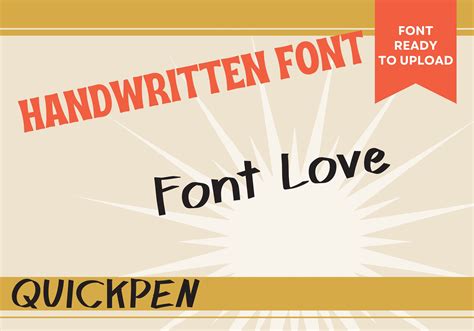
Tattoo Font Quickpen, Detailed information on the quickpen font: Download the quickpen free font.
Quickpen is casual and carefree, designed to recreate the look of confident, quickly jotted script with a felt tip pen or brush. Discover (and save!) your own pins on pinterest Quickpen contains 2 styles and family package options.
Quickpen quickly gained popularity among designers. The laura condouris famous type designer took charge for designing this specific font, which was released on 4 april 2014 via trial by cupcakes due to its stylish glimpses as well as sharp highlights; Quickpen is casual and carefree, designed to recreate the look of confident, quickly jotted script with a felt tip pen or brush. Quickpen is casual and carefree, designed to recreate the look of confident, quickly jotted script with a felt tip pen or brush.
Complete family of 2 fonts: Tattoo (1) techno (2422) typewriter (84) uncategorized (21762) unusual (607) western (97) top fonts. Available for mobile app use. Images about tattoo font quickpen is one of the most searched topics on the internet today. Quickpen font is a modern and unique typeface which was designed by laura condouris and was published by trial by.
Quickpen is casual and carefree, designed to recreate the look of confident, quickly jotted script with a felt tip pen or brush. Quickpen quickly gained popularity among designers. Quickpen was designed by laura condouris and published by trial by cupcakes. Tattoo (1) techno (2422) typewriter (84) uncategorized (21762) unusual (607) western (97) top fonts. Quickpen, a casual script font.
Most fonts on this site are freeware, some are shareware or linkware. Quickpen is casual and carefree, designed to recreate the look of confident, quickly jotted script with a felt tip pen or brush. No matter how captivating your images are, without the right font choice to complement them, the end product would always lack the ingredient it needs to.
Quickpen font is a modern and unique typeface which was designed by laura condouris and was published by trial by cupcakes on 4 april 2014. Create date october 5, 2020. What is the quickpen font? Quickpen quickly gained popularity among designers. 25 must have calligraphy fonts for your designs a huge part of any design is the text that comes.
No matter how captivating your images are, without the right font choice to complement them, the end product would always lack the ingredient it needs to completely… Download quickpen font free from fontspace.io now. Quickpen is casual and carefree, designed to recreate the look of confident, quickly jotted script with a felt tip pen or brush. Designed to recreate the.
The laura condouris famous type designer took charge for designing this specific font, which was released on 4 april 2014 via trial by cupcakes due to its stylish glimpses as well as sharp highlights; Detailed information on the quickpen font: What we present here may be different from most other websites. 3807 views 1 replies reply to topic. Images gallery.
Laura condouris is a famous type designer from the usa. Quickpen is casual and carefree, designed to recreate the look of confident, quickly jotted script with a felt tip pen or brush. Complete family of 2 fonts: Quickpen is casual and carefree, designed to recreate the look of confident, quickly jotted script with a felt tip pen or brush. Images.